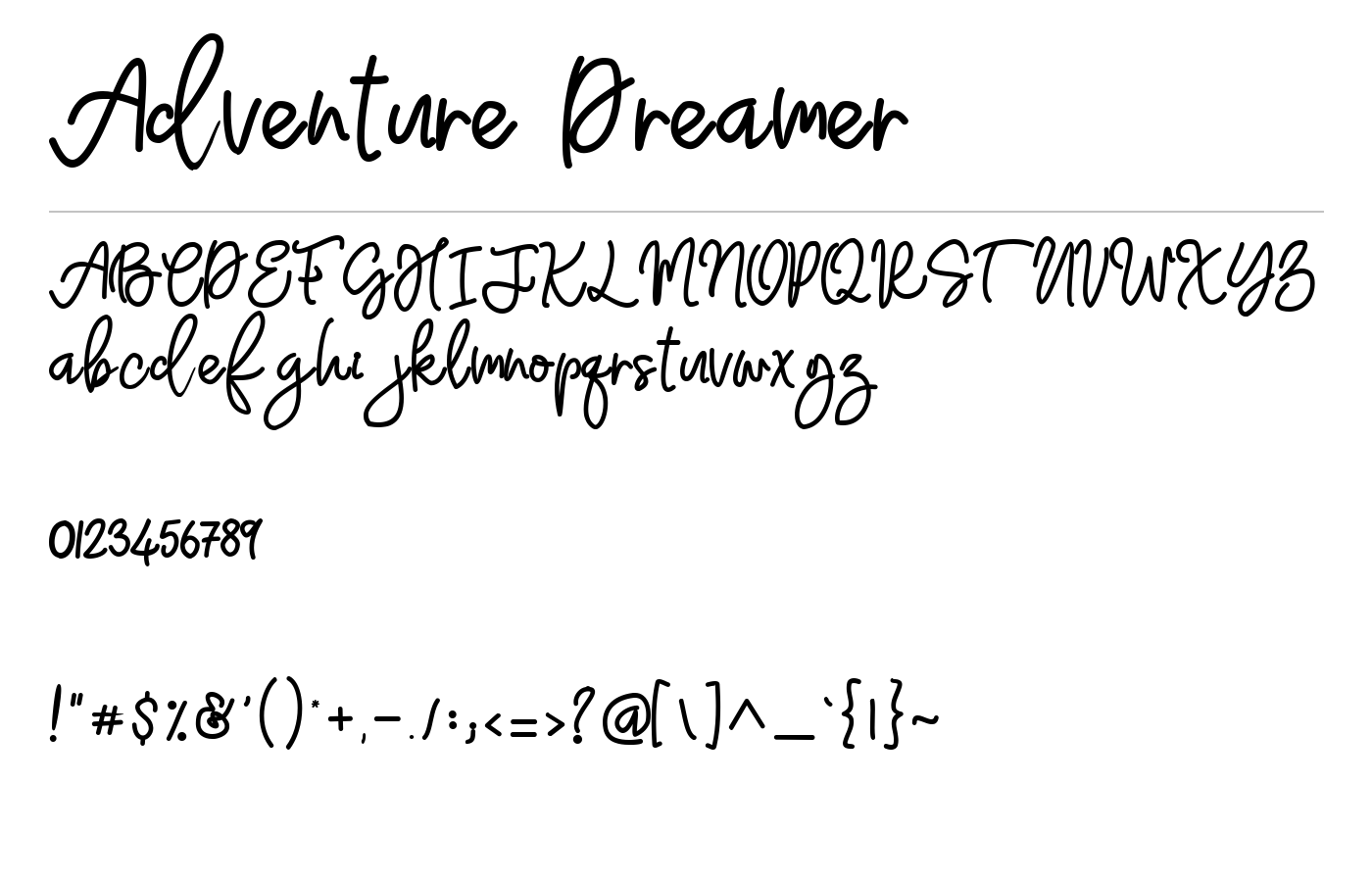
Adventure Dreamer is a lively and playful handwritten script font with a casual, welcoming feel. Its smooth, flowing strokes and slightly varied letter shapes create an organic, personal touch that works beautifully for informal branding, invitations, and creative projects. This font adds a sense of warmth and approachability, making it perfect for lifestyle, craft, or adventure-themed designs.
Adventure Dreamer Font
About Adventure Dreamer Font
| Font family | Adventure Dreamer Font |
| Designer | Letterara2019 |